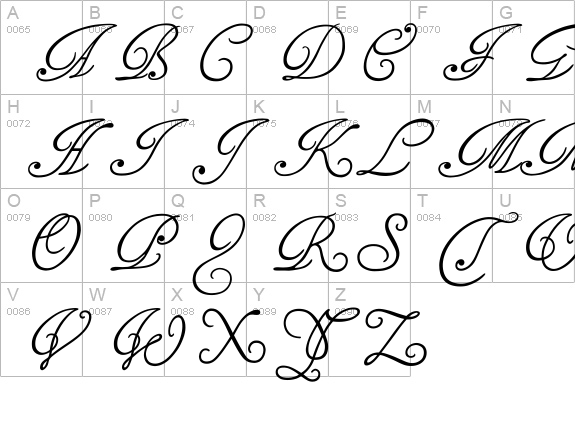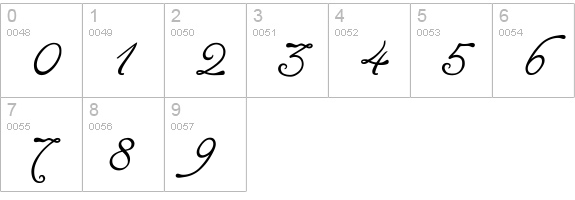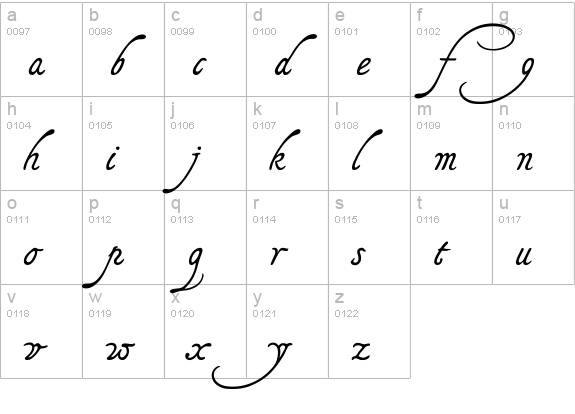
Tagettes Font Details
Introducing Tagettes, a captivating and versatile font that effortlessly combines elegance with a touch of playfulness. This font exudes a sense of sophistication, making it perfect for a wide range of creative projects. Its unique and intricate letterforms will add a touch of charm to any design, whether it be branding materials, packaging, invitations, or social media graphics. Tagettes is designed with meticulous attention to detail, resulting in a harmonious balance between its graceful curves and sharp angles. The smooth flowing lines create a sense of fluidity, while the subtle embellishments add a hint of whimsy. This font truly stands out and will leave a lasting impression on any viewer. One of the most remarkable features of Tagettes is that it is free to download at FontsMarket.com. This means that you can easily access this stunning font without any constraints, allowing you to unleash your creativity without limitations. Whether you are a professional designer or simply someone looking to add a touch of elegance to your personal projects, Tagettes is the perfect choice. With a wide range of weights and styles available, Tagettes offers endless possibilities for customization. Whether you prefer a delicate and airy look or a bold and impactful statement, this font has got you covered. Its versatility ensures that it can be seamlessly integrated into any design aesthetic, making it a must-have in your font collection. Tagettes is not just a font, but a tool that empowers your creativity. It allows you to effortlessly transform your ideas into stunning visual creations. So why wait? Experience the beauty and versatility of Tagettes today, and let your designs truly shine. Visit FontsMarket.com to download this remarkable font for free and unlock a world of endless design possibilities.